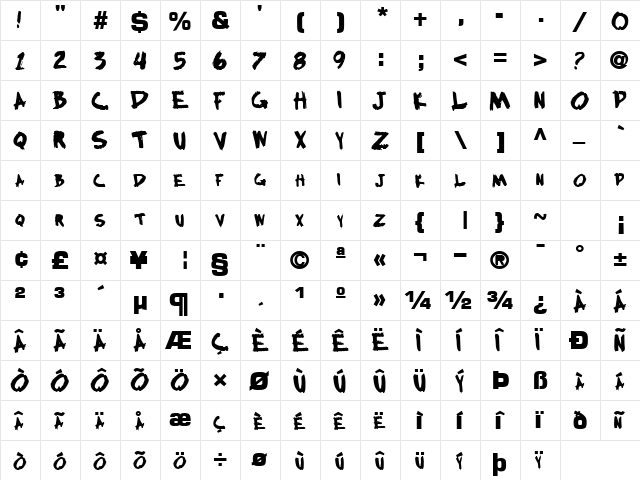
BocciWorksBold55 Bold
Design Context for BocciWorksBold55 Typeface
BocciWorksBold55 is a composed and adaptable typeface that performs quietly and consistently across a wide range of design contexts. The heavy weight commands attention and anchors typographic hierarchies.